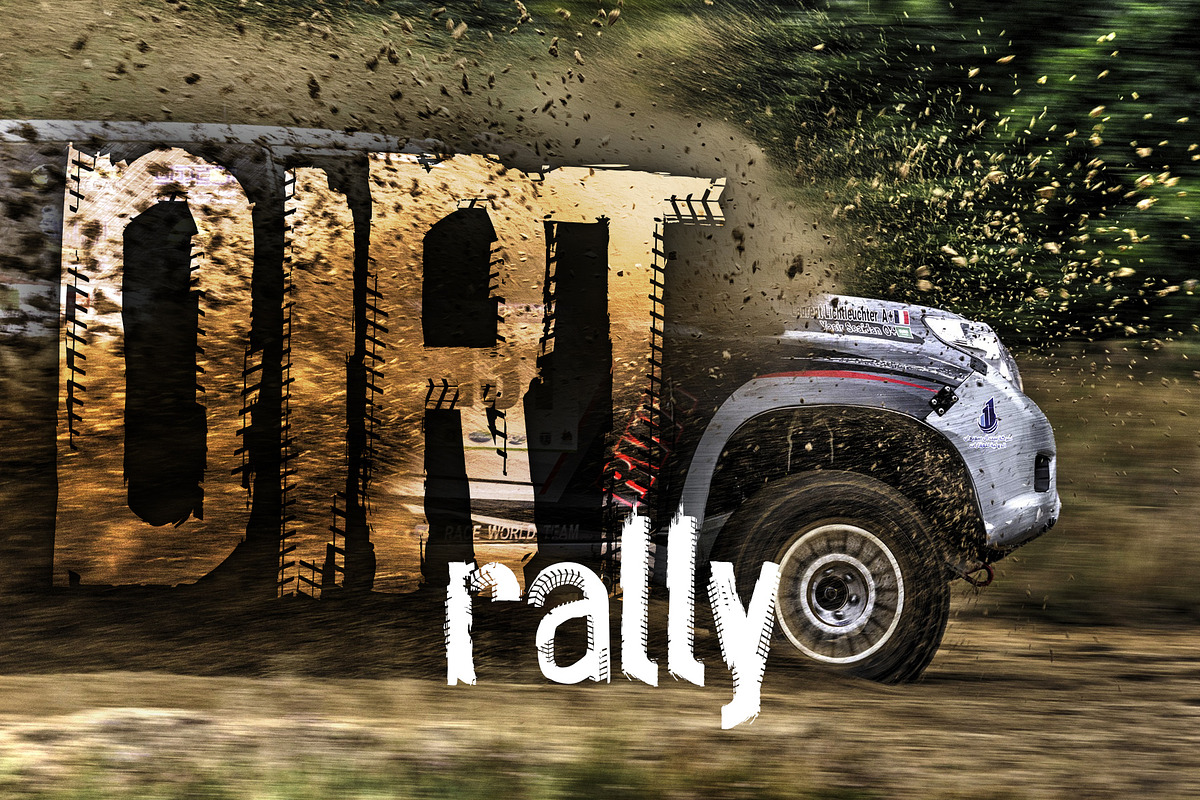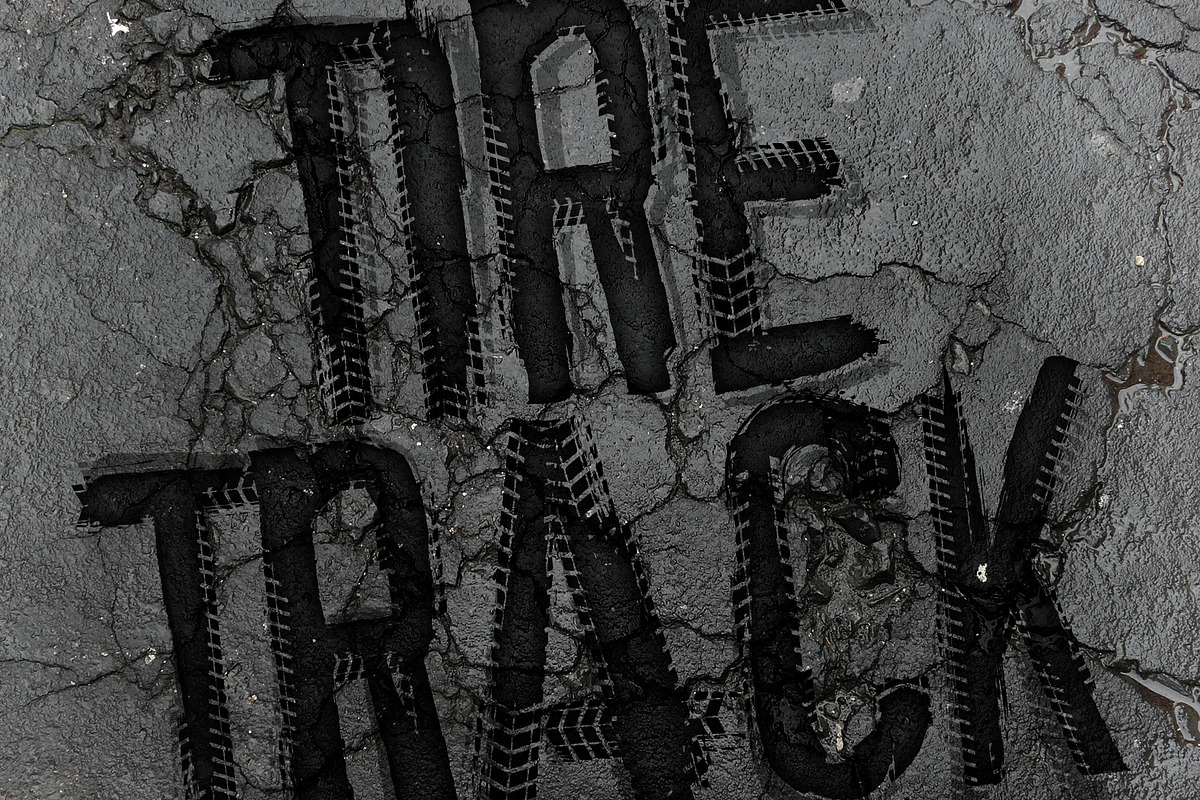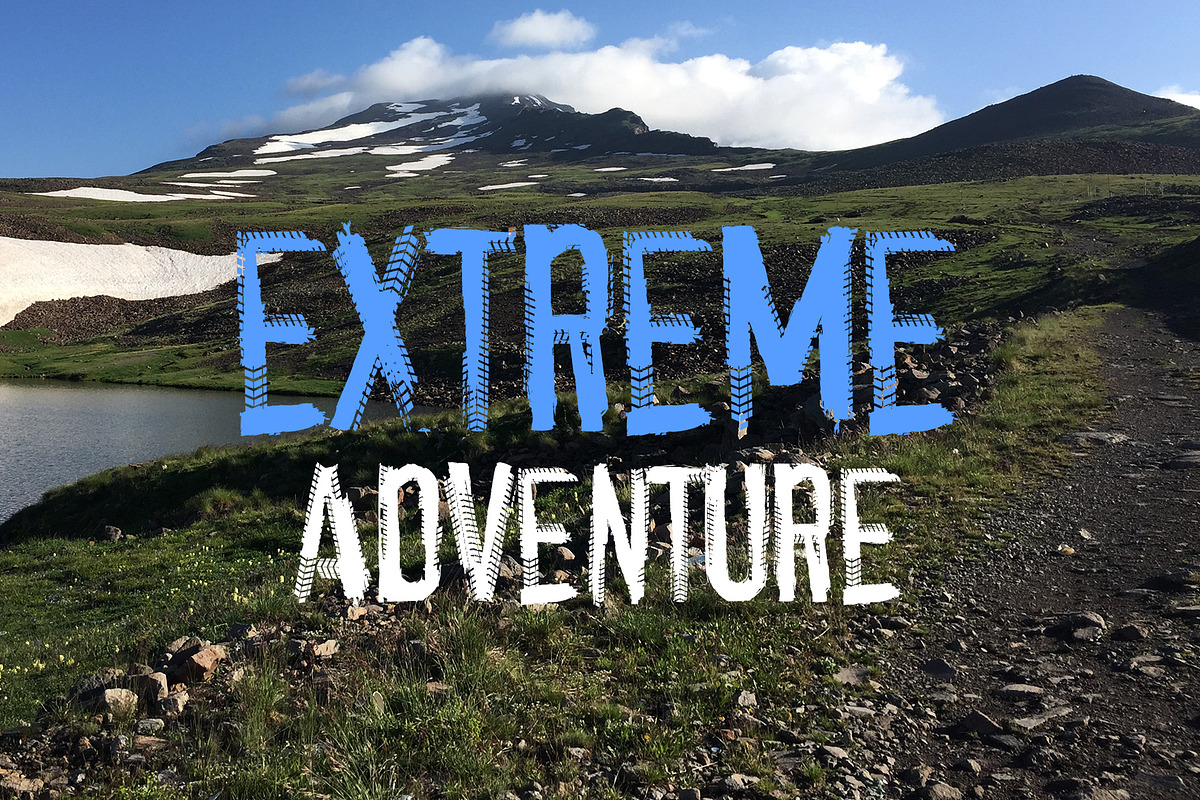
Grunge Tire Font
I'm pleased to introduce my first GRUNGE TIRE FONT! It's super useful for creating materials for off-road rallies and other extreme championships. It could also be used in different car advertising campaigns, such as: 4x4 or tires. You can use it for making special event logos, such as drifting shows or off-road bike races. This unique font is perfect for posters, T-shirt prints and other promo designs.
GRUNGE TIRE FONT is a display font, including not only uppercase letters and numbers, but also lowercase letters and most common glyphs. If you decide to use it with massive texts, be aware that due to the complexity and uniqueness of each letter it may work slower then other fonts on low-power and older computer systems.It's best used for eye-catching headlines, typography and creative lettering.